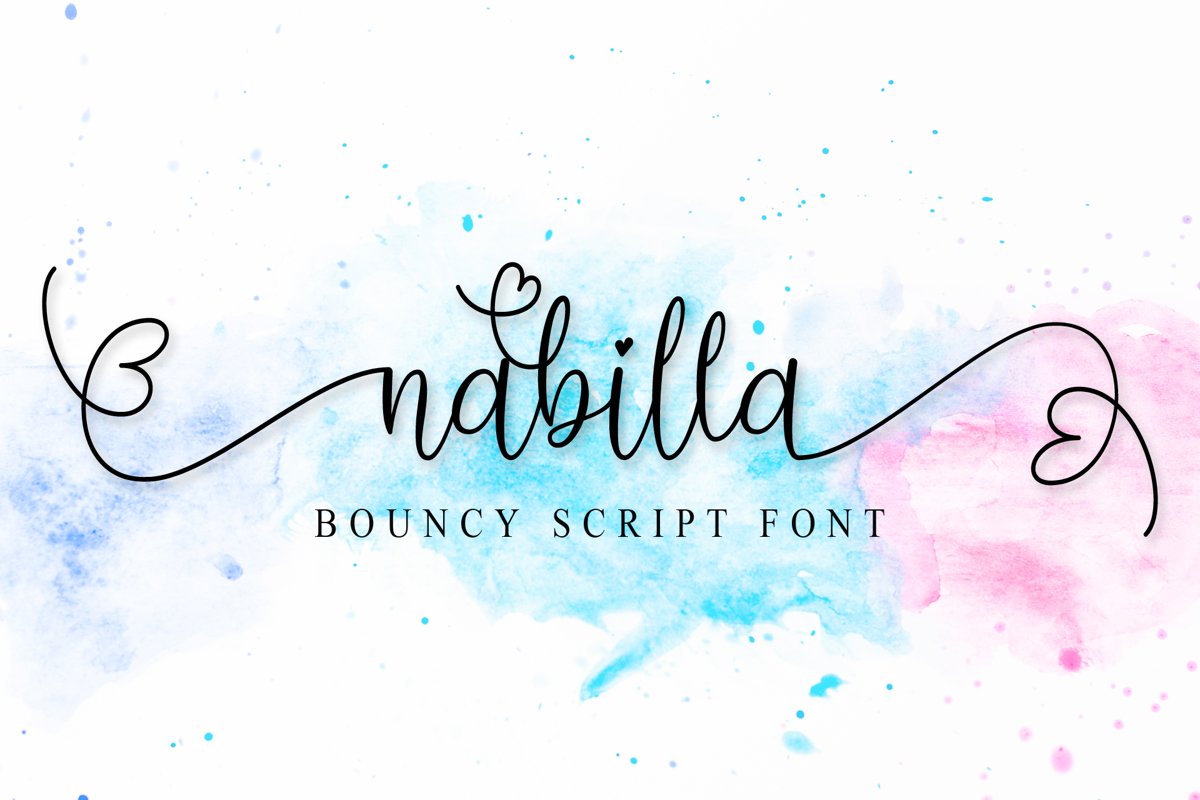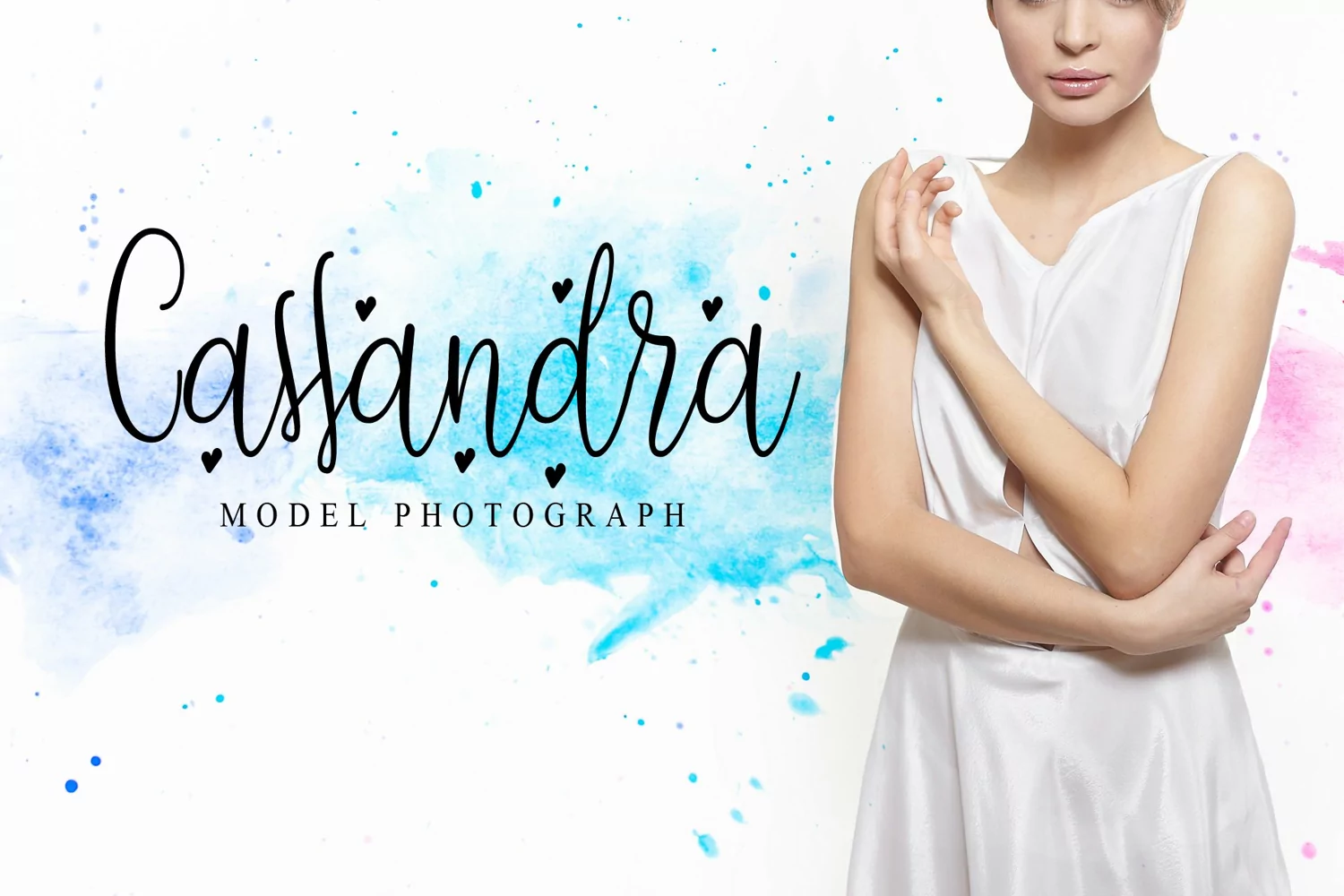
Introducing our latest product, Nabilla, is a bouncy script font. Nabilla is very beautiful, it is a calligraphy font created with a love for calligraphy art. The wealth of litagure features and various alternate makes this font so perfect to be included in every design project.
This font is great for many design projects such as product brand, quotes, clothes, business card, wedding invitation, signature, logos, etc.